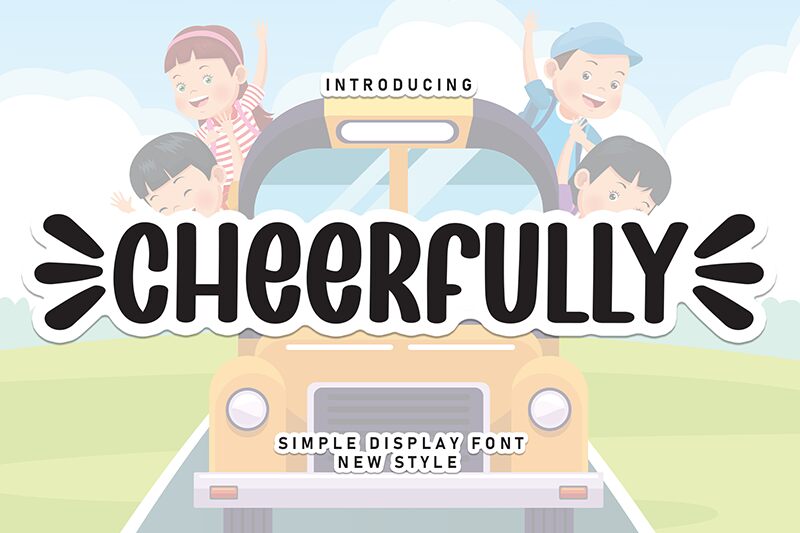
Cheerfully
Cheerfully font is a condensed bold display typeface from Scratchones that epitomizes a cartoon visual style. It is rounded, whimsical, slightly retro, and lively in appearance making it likely to evoke feelings of happiness and positivity in those viewing the texts you create. This free font is perfect for casual branding or interactive media intended for kids.
Use this font freely in designing posters, flyers, magazines, books covers, packaging materials, branding designs like logos and labels. Any advertisement would surely benefit the aesthetics realized by Cheerfully too. Other projects include signage or shop displays like store names on front windows or boards on top of entrances.